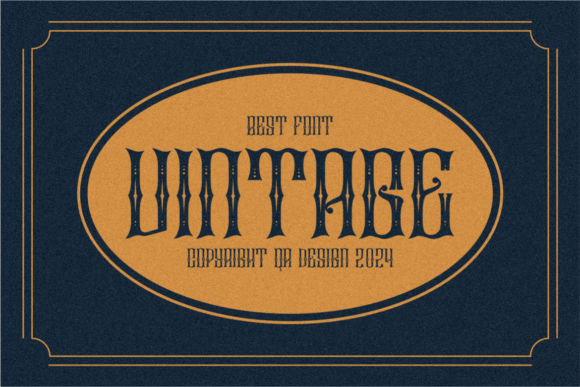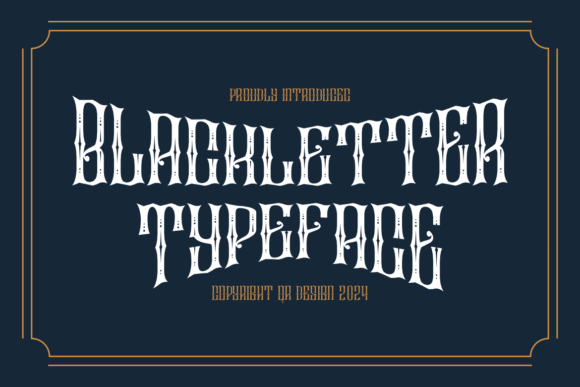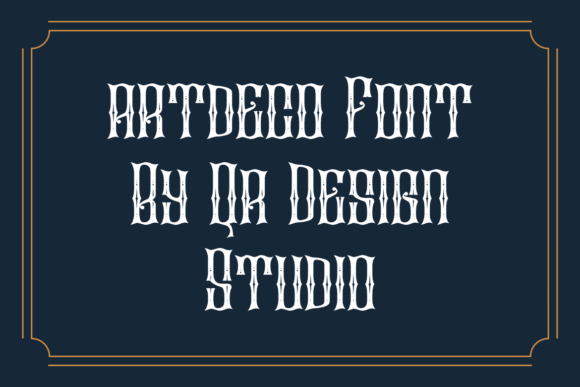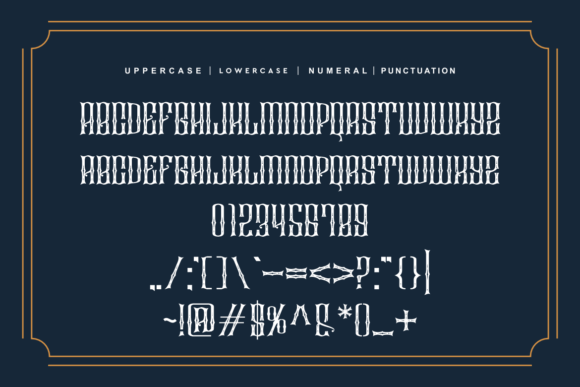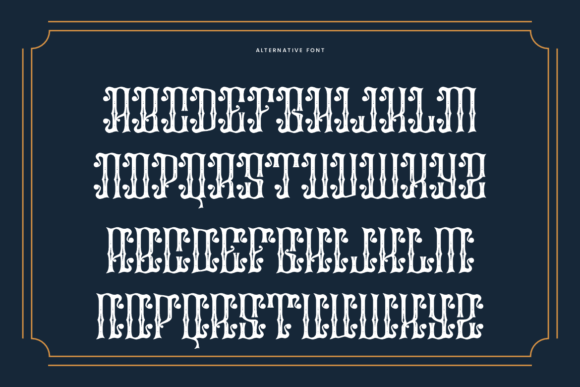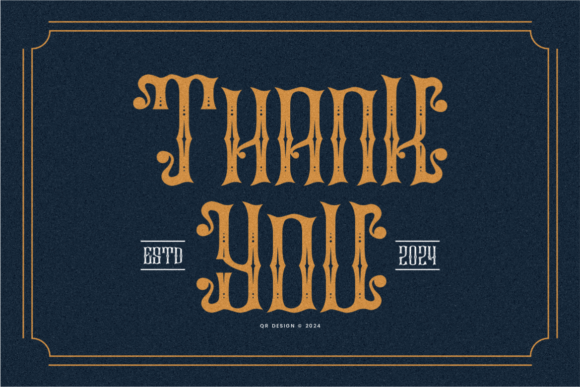
The Ultimate Guide to Actions American Font: A Bold and Versatile Blackletter Font
I’ll never forget the time I was working on a project for a client who wanted a bold, eye-catching font to make their brand stand out. I scoured the internet for hours, trying to find the perfect font, but nothing seemed quite right. That was until I stumbled upon Actions American, a stunning blackletter font that instantly caught my attention. In this article, I’ll share my experience with Actions American, its features, and how to make the most of it in your designs.
First Impressions: A Bold and Thick Lettered Blackletter Font
Actions American is a bold and thick lettered blackletter font that’s perfect for making a statement. Its unique lettering style and bold appearance make it ideal for headlines, titles, and any design project where you want to grab attention. What I love about Actions American is its versatility – it can be used in a variety of contexts, from crafting and scrapbooking to commercial design projects.
Here’s what I love about Actions American:
- ✨ PUA encoded: This means you can access all the glyphs and swashes with ease, making it a breeze to customize your designs.
- ✅ Bold and thick lettering: Perfect for making a statement and grabbing attention.
- 🎉 Versatile: Suitable for a wide range of design projects, from crafting to commercial use.
And here are a few things to keep in mind:
- ⚠️ Be mindful of font size: Due to its bold nature, Actions American can be overwhelming if used at large font sizes.
The story behind Actions American is one of passion and creativity. The font was designed by a team of typographers who wanted to create a bold and versatile blackletter font that would inspire designers and creatives. With its unique lettering style and bold appearance, Actions American is sure to make a statement in any design project.
| Font Name | Actions American Font |
| Author | qrdesignstd |
| What is Actions American? | Actions American is a bold and thick lettered blackletter font perfect for making a statement in your designs. |
| Is Actions American PUA encoded? | Yes, Actions American is PUA encoded, making it easy to access all the glyphs and swashes. |
Overall, Actions American is a versatile and bold font that’s perfect for designers, crafters, and creative hobbyists. With its unique lettering style and bold appearance, it’s sure to make a statement in any design project.